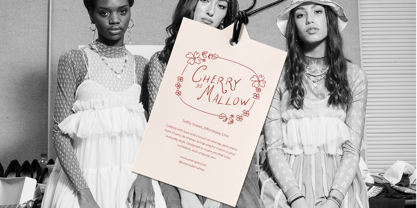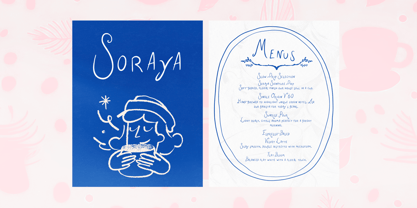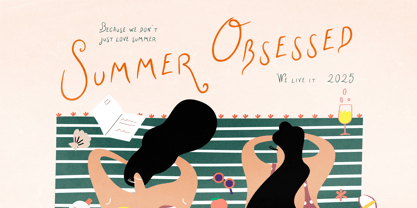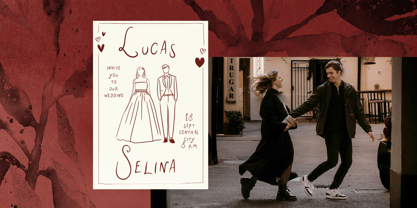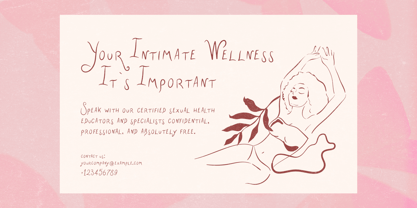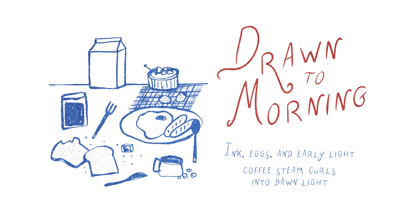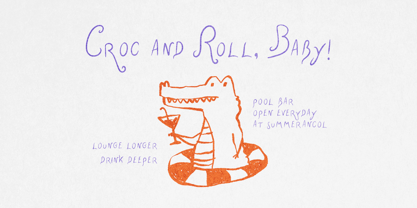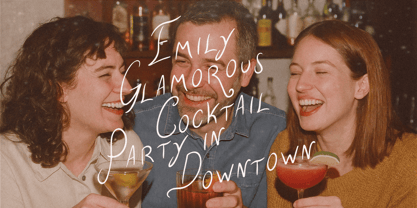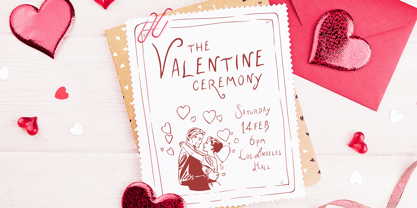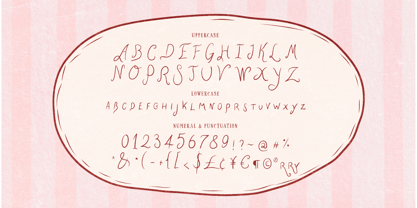
After Rainbows
by Gholib Tammami
The After Rainbows Font Family was designed by Gholib Tammami and published by Gholib Tammami. After Rainbows contains 1 styles. More about this family
After Rainbows is a charming handwritten script that captures the soft, whimsical feeling of dreamy days and gentle rain. With playful curves and delicate strokes, this font is perfect for feminine branding, wedding invitations, social media quotes, and anything that needs a touch of sweet personality. Let After RainBows add warmth, love, and a hint of magic to your designs.